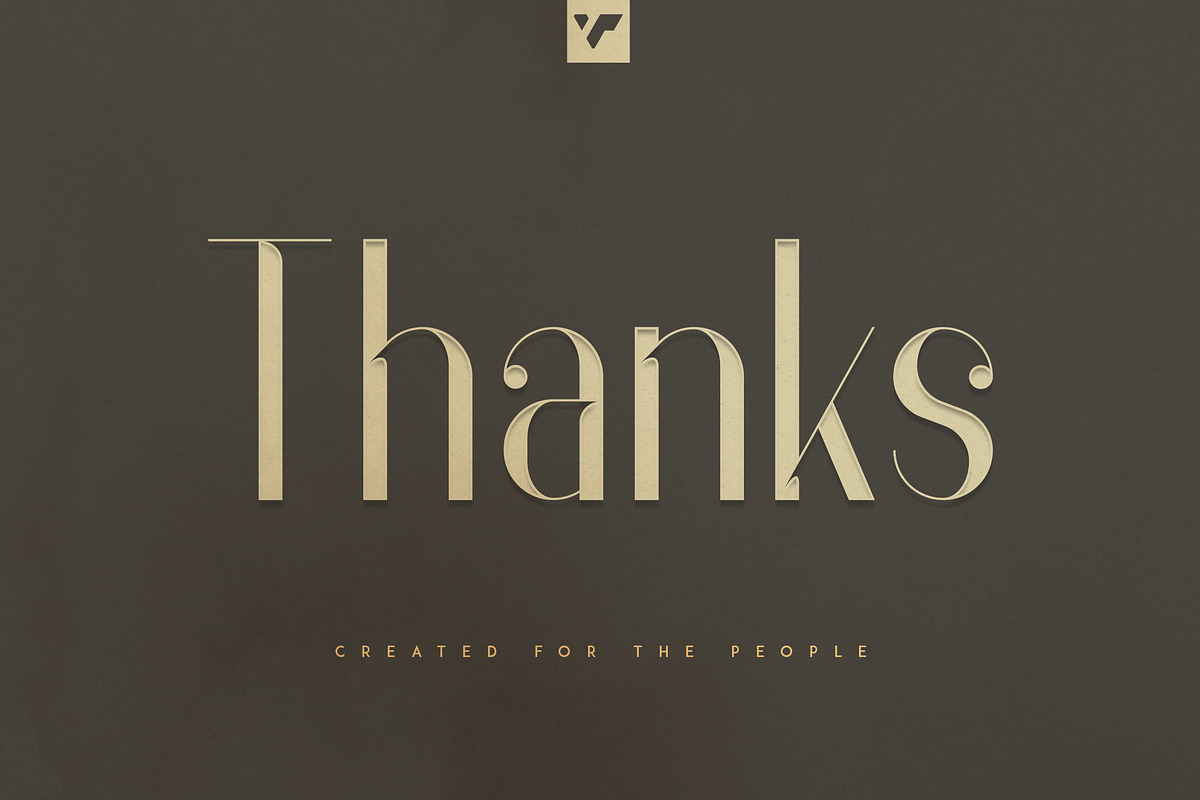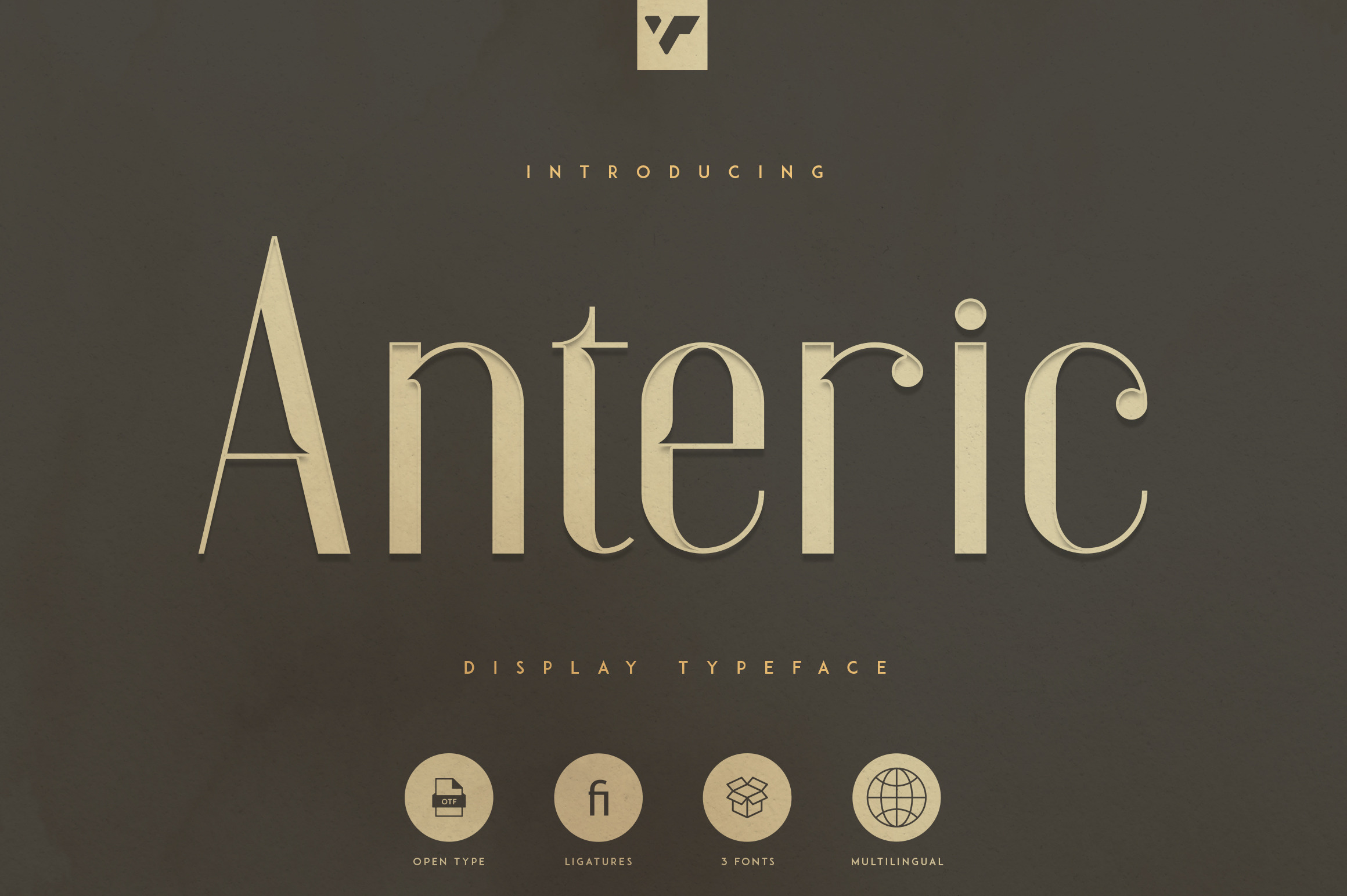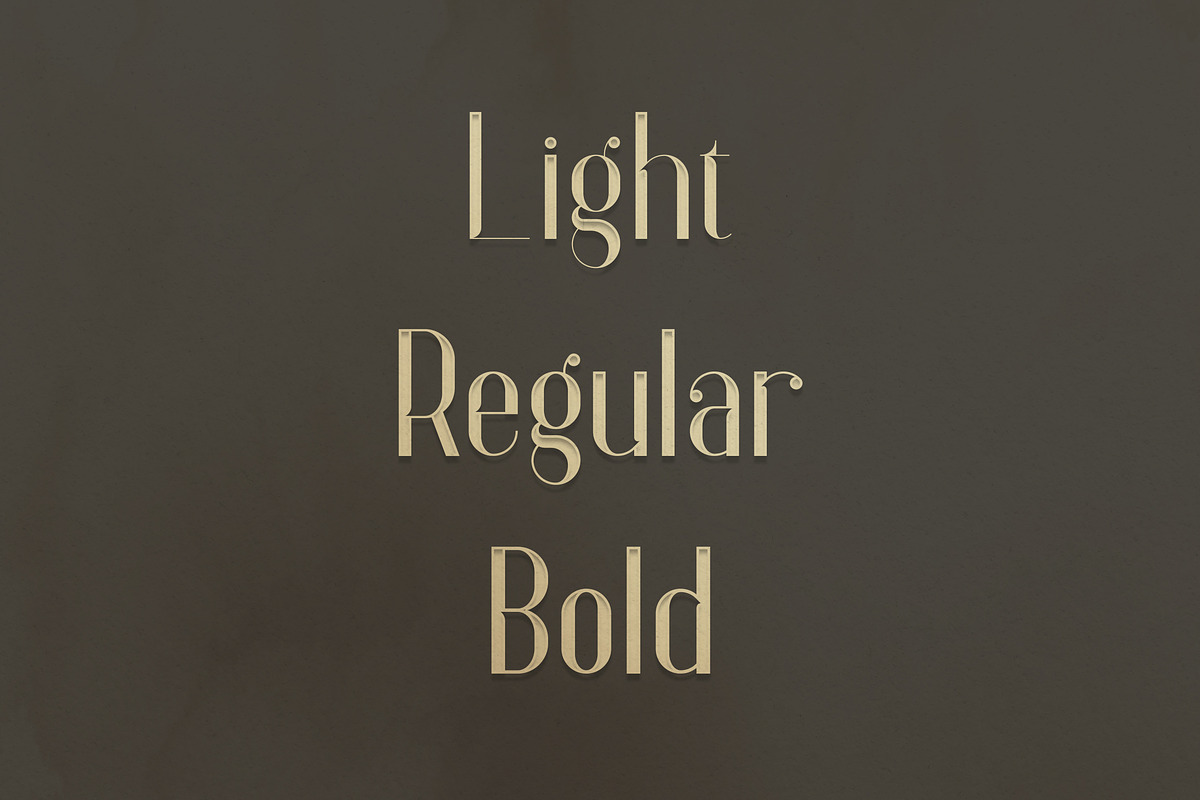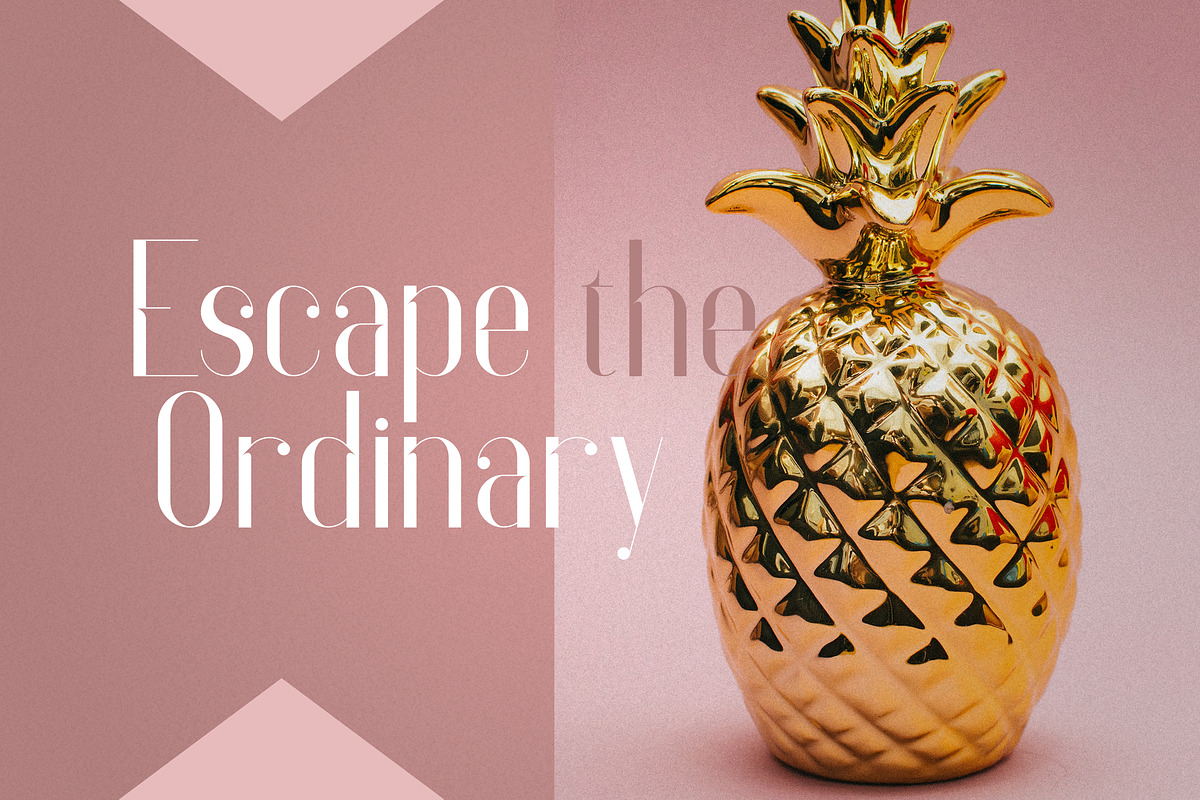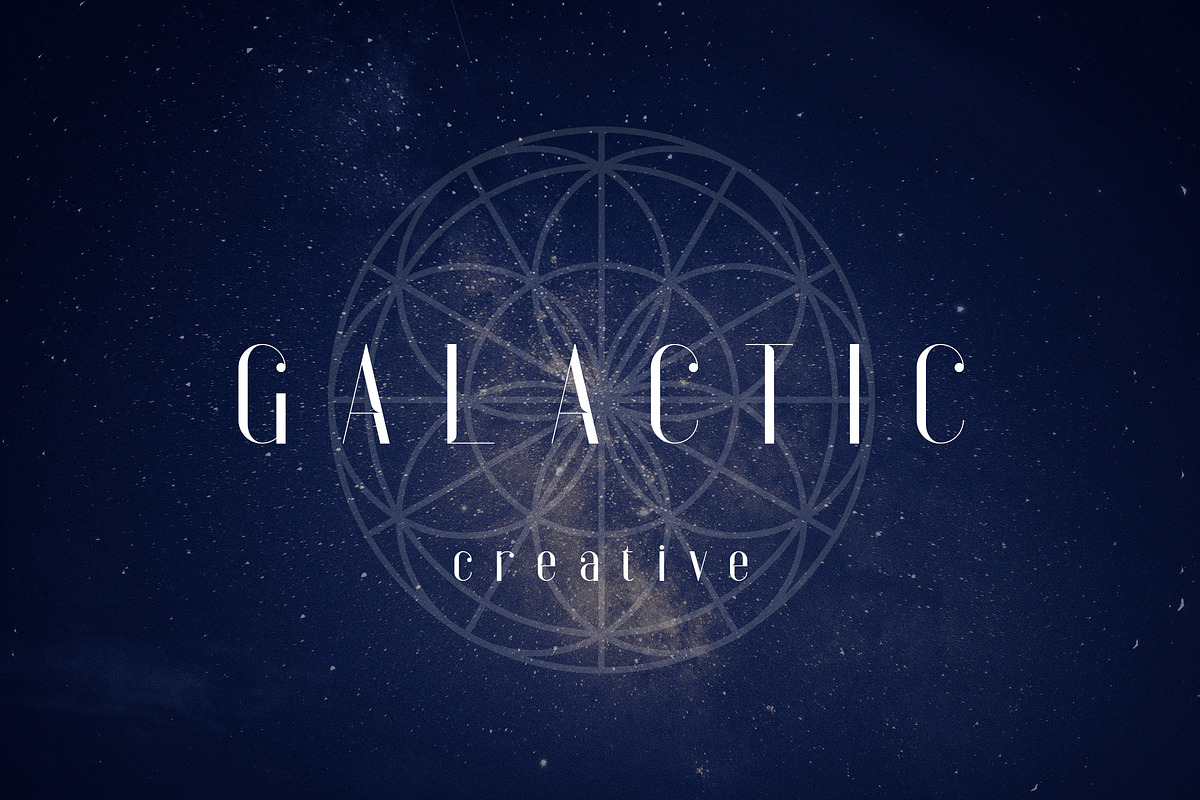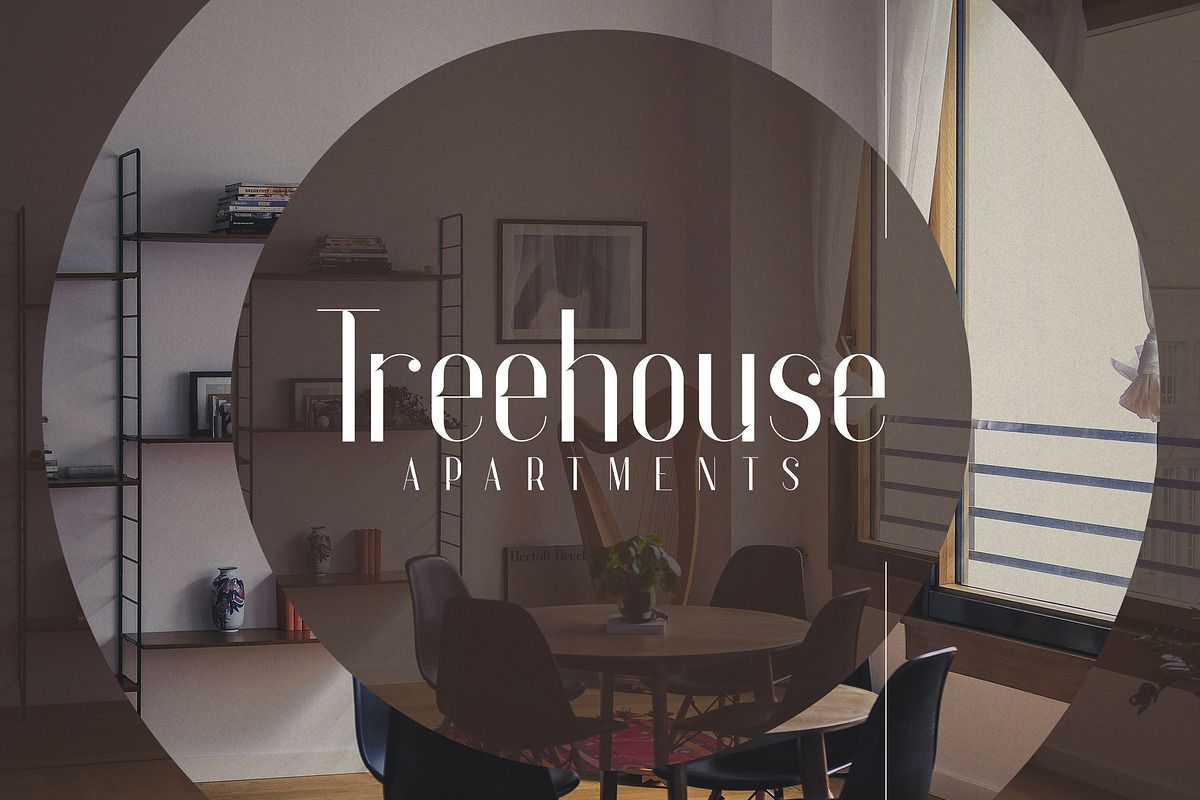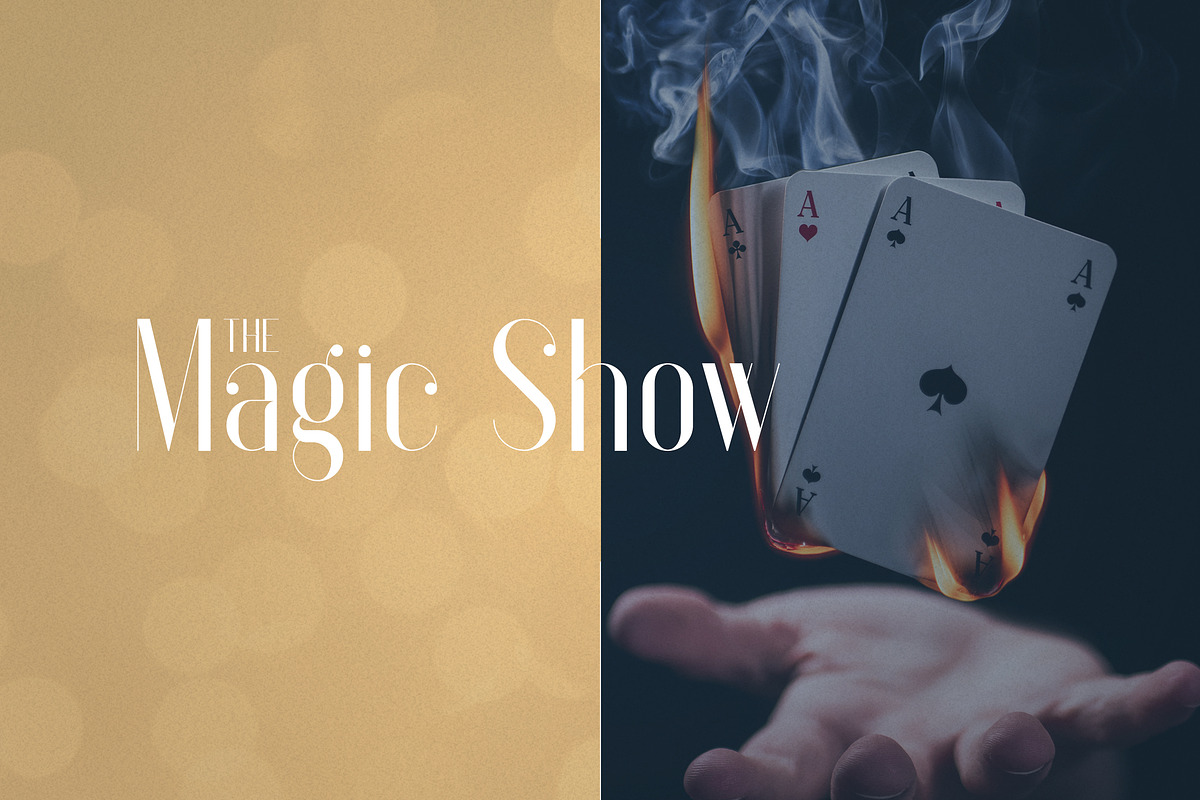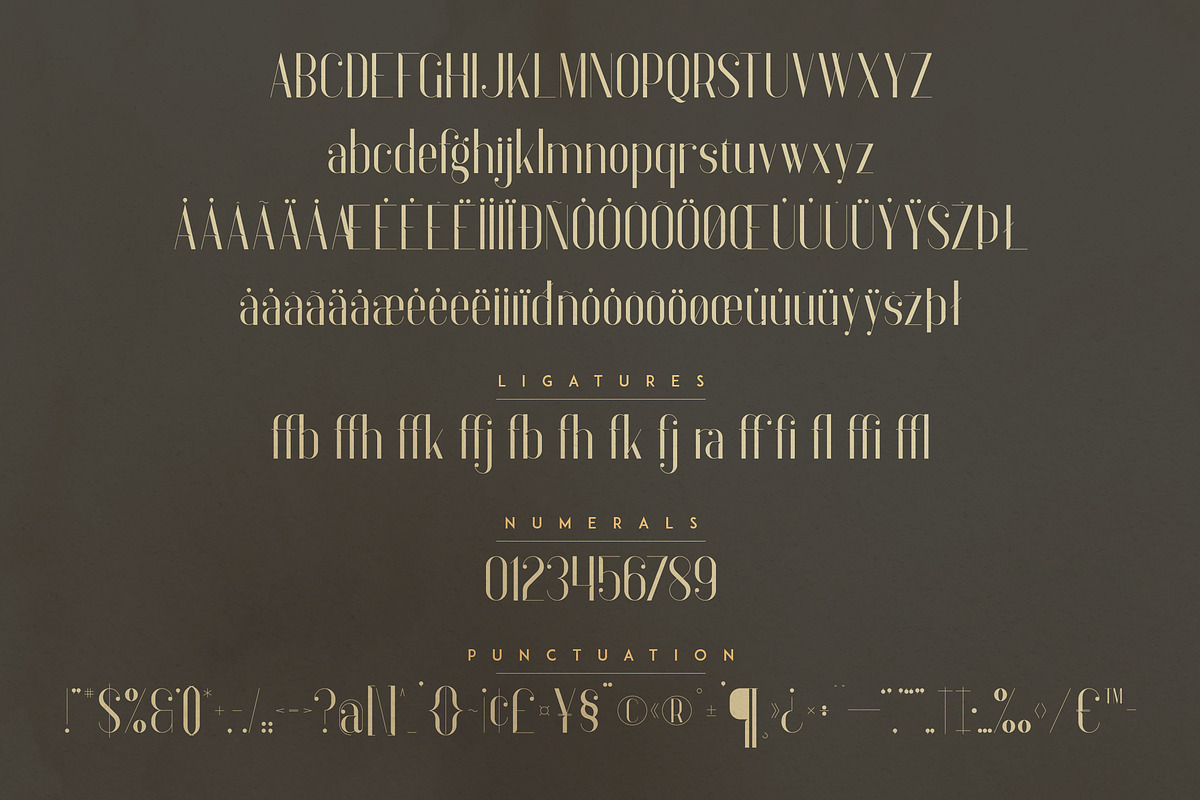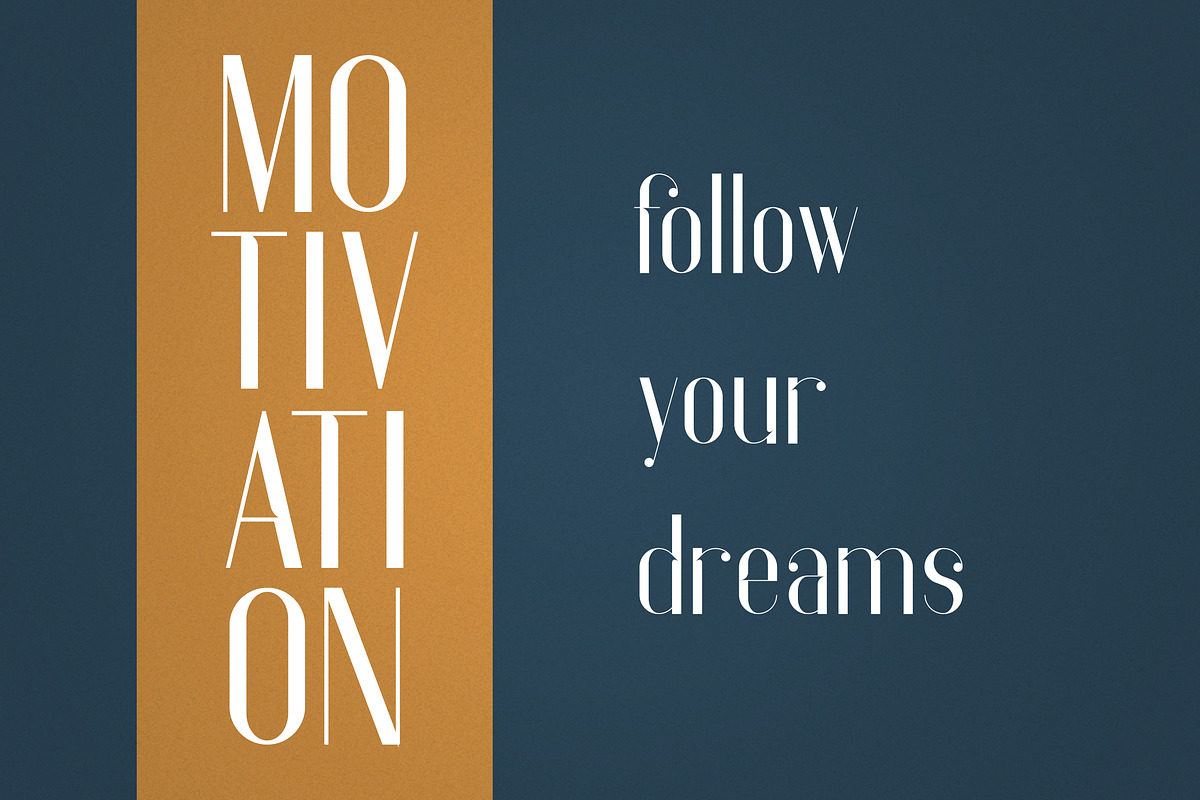
Introducing Anteric - Display typeface with 3 weights
Anteric is vintage, elegant font with 3 weights, ligatures and multilingual support. It's a very versatile font that works great in large and small sizes.
Anteric is perfect for branding projects, home-ware designs, product packaging, magazine headers - or simply as a stylish text overlay to any background image.
- Uppercase, lowercase, numeral,punctuation & Symbol
- Light
- Bold